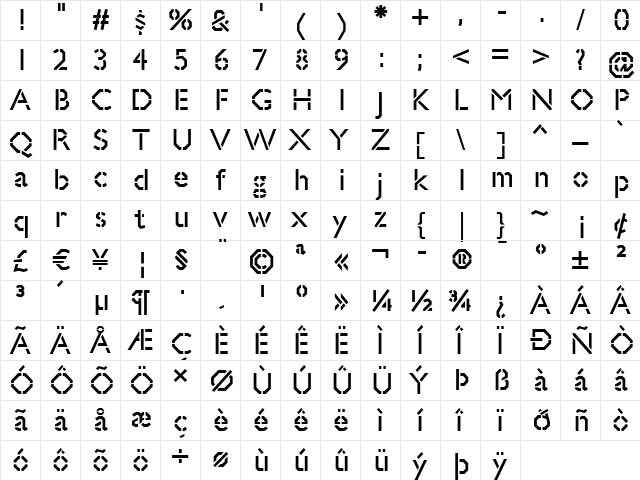
Jillican War Regular Font Preview
Jillican War Regular
Jillican War Regular Font Details
| Foundry | Typodermic |
Design Context for Jillican War Typeface
Jillican War takes a measured approach to typography — its balanced proportions and neutral character make it a reliable workhorse for both digital and print work.